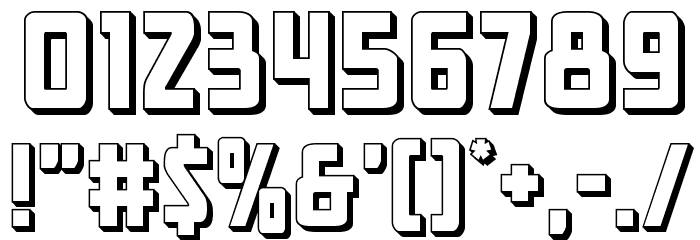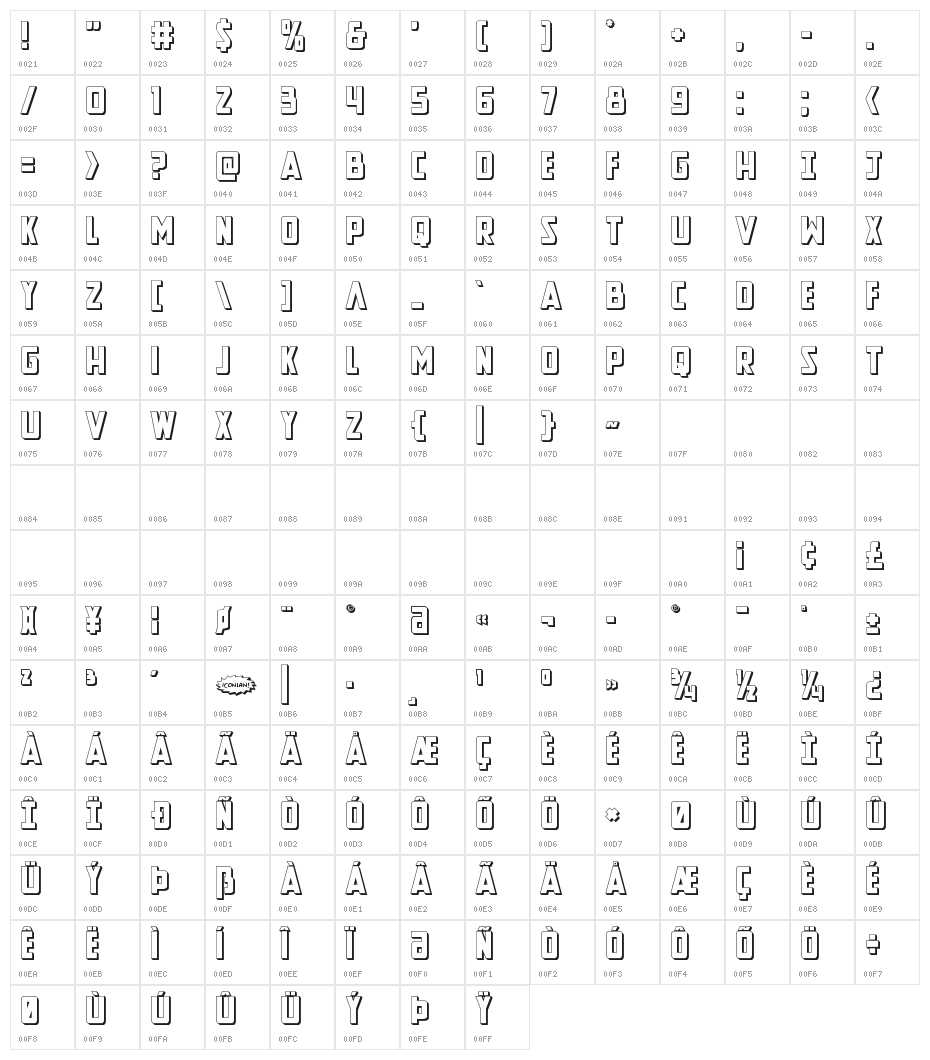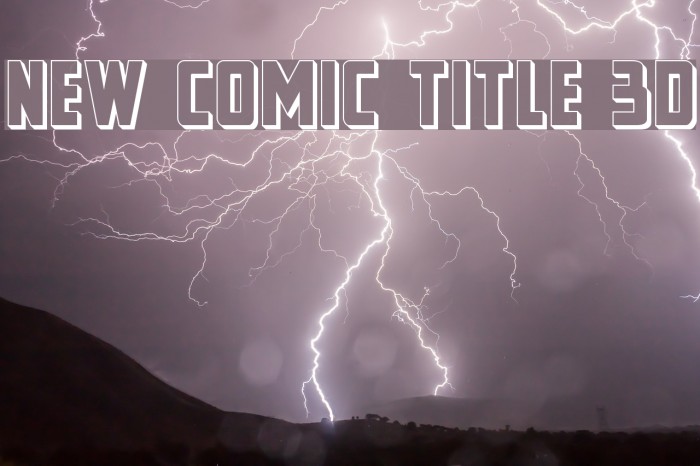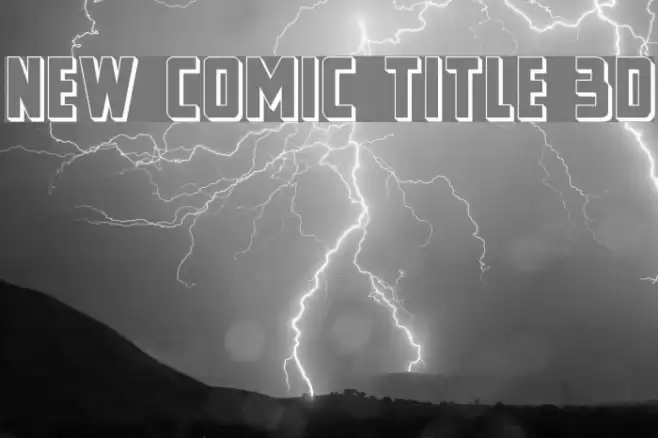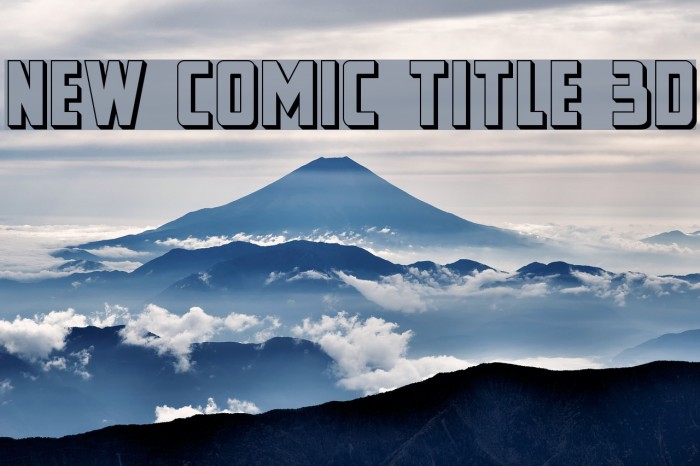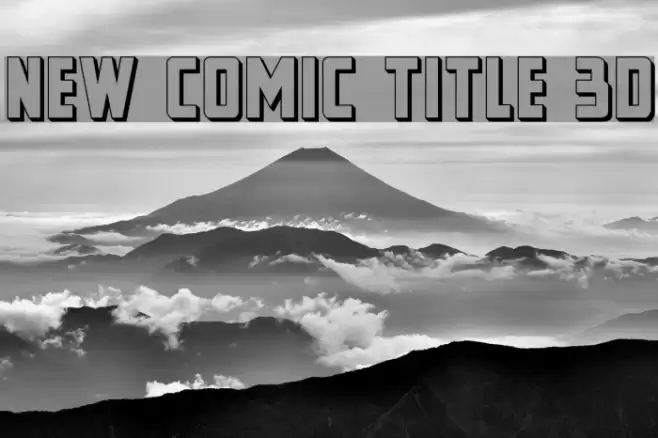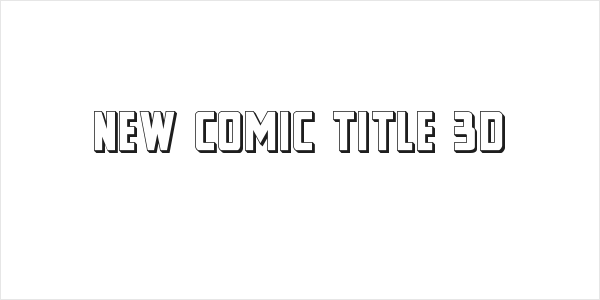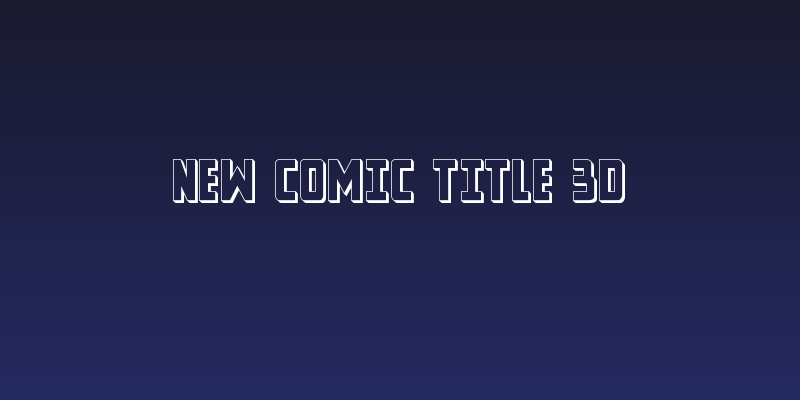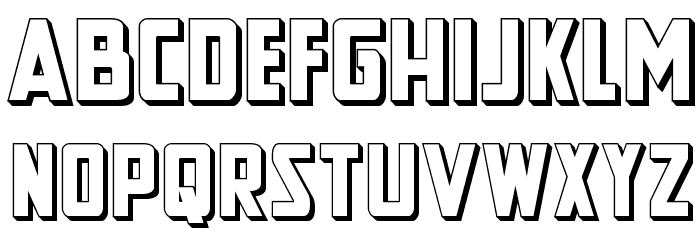
New Comic Title 3D Font
New Comic Title 3D Description
This bold and dynamic font features a three-dimensional effect that gives each character a striking, standout appearance. The letters are blocky and geometric, with a strong outline that enhances the 3D illusion. The uppercase and lowercase letters maintain a consistent style, ensuring uniformity across different text applications. Numbers and special characters are equally bold, making them perfect for attention-grabbing designs. The font's playful and energetic style is reminiscent of comic book titles, making it ideal for projects that require a fun and engaging visual impact.